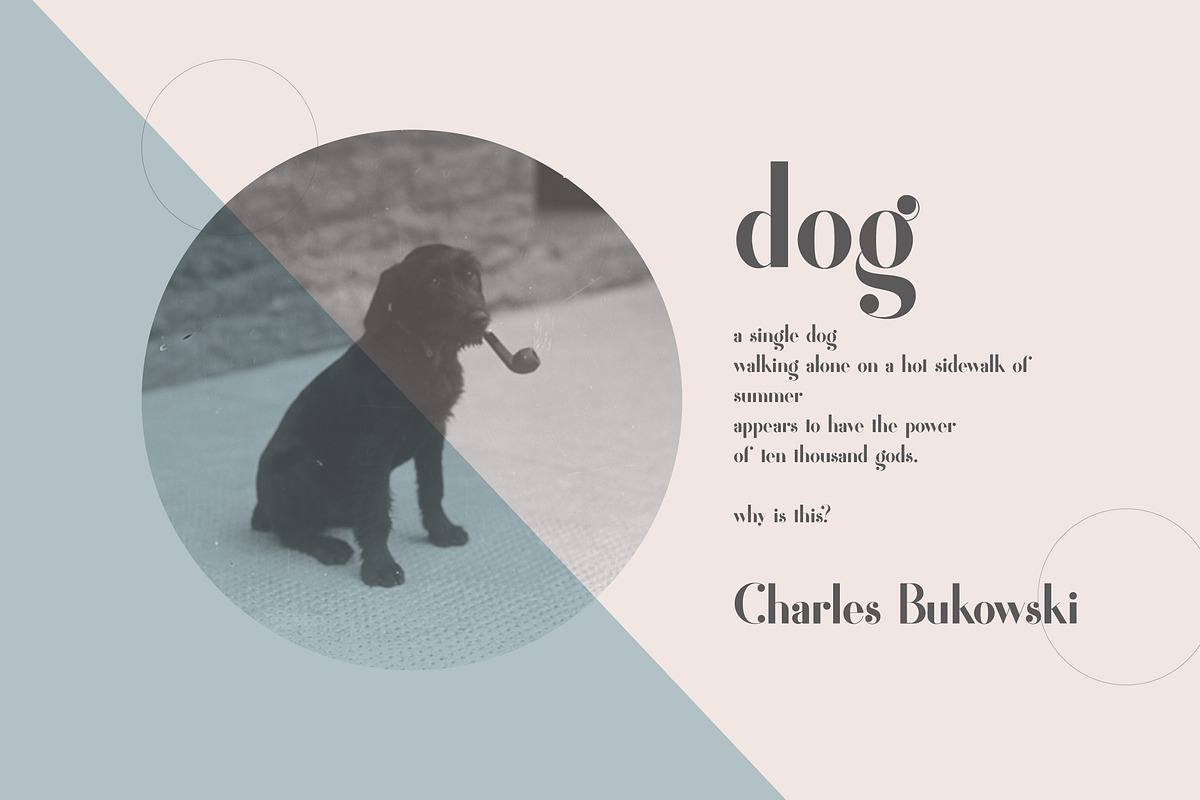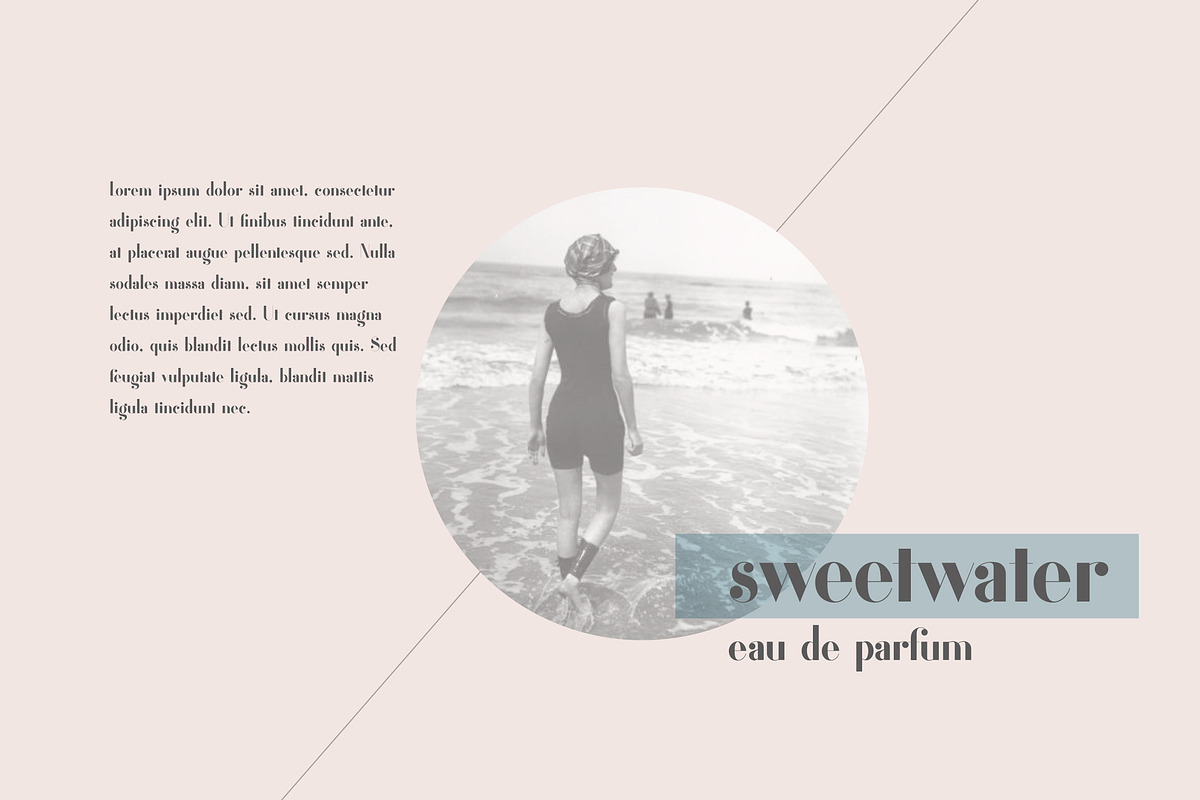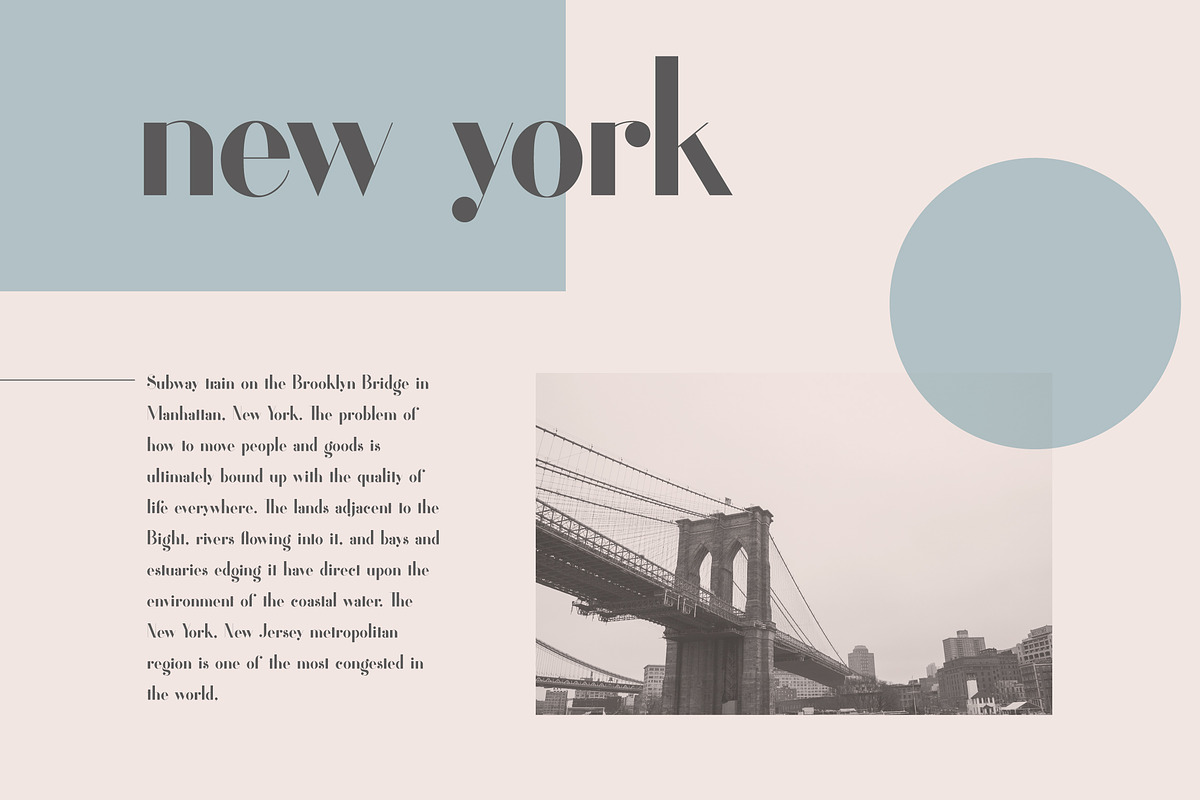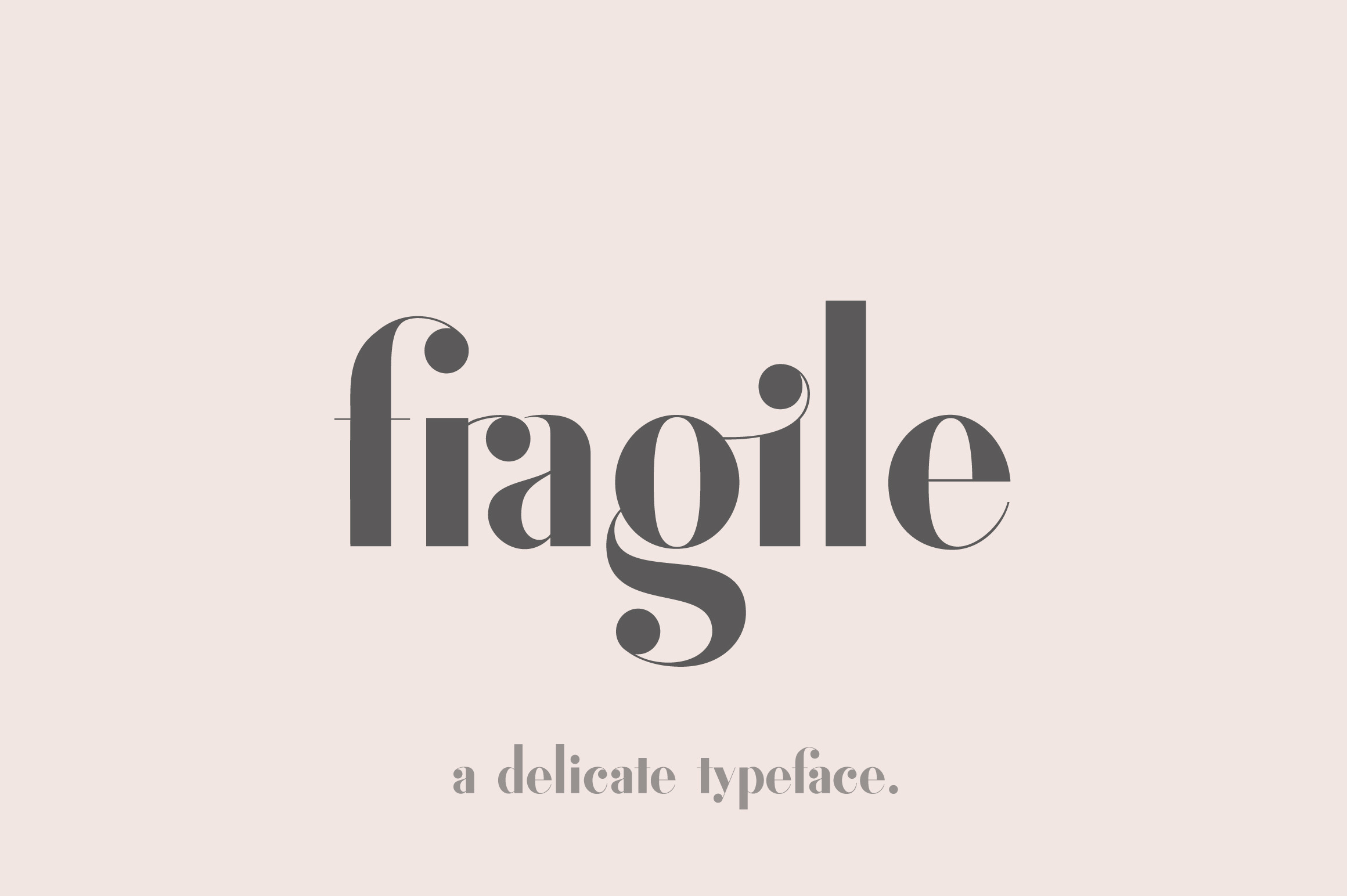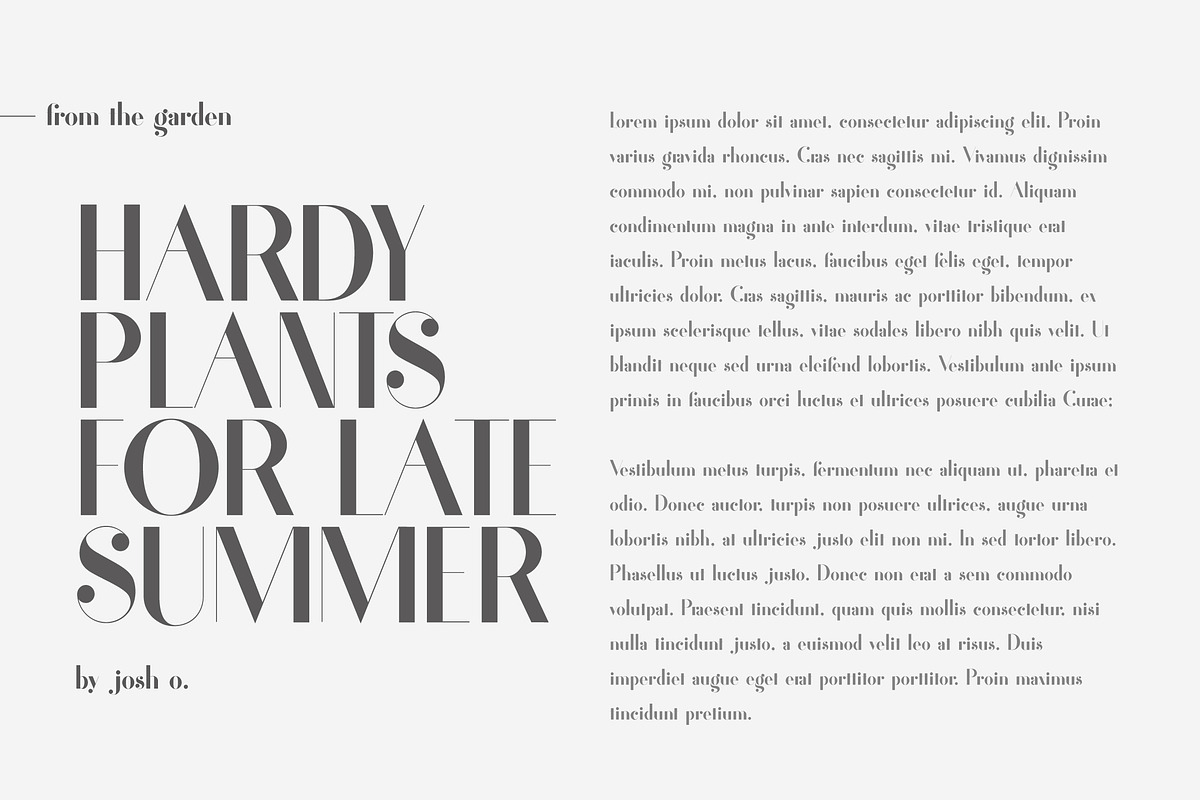
Fragile - A Delicate Typeface
Fragile is a delicate typeface that's perfect for creating gorgeous headlines and designs with personality. Based on vintage letterforms from the '60s and '70s, Fragile makes an excellent typeface for vintage graphics, and the clean lines and ball terminals give a sleek, elegant look to logos, wedding invitations, editorials, and more. Create gorgeous headlines with an all caps design, or try the lowercase for a delicate look that's simply beautiful.
Uppercase Characters
Lowercase Characters
Discretionary Ligatures
Multilingual support for various languages including: French, German, Spanish, Portuguese, Italian, Dutch, Finnish, Swedish, and more.
Fragile comes with Opentype features including discretionary ligatures. These features can be turned on in the Opentype panel of your Adobe program, or they can be chosen directly from the Glyphs panel.